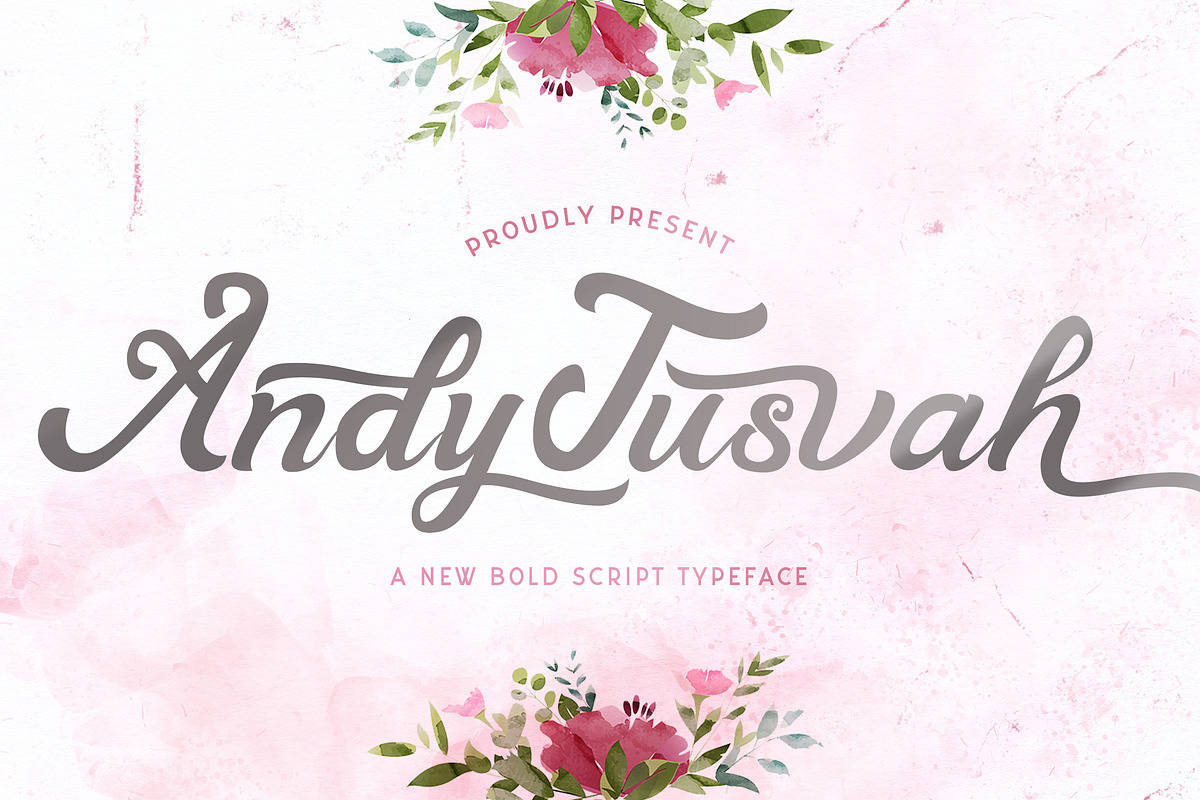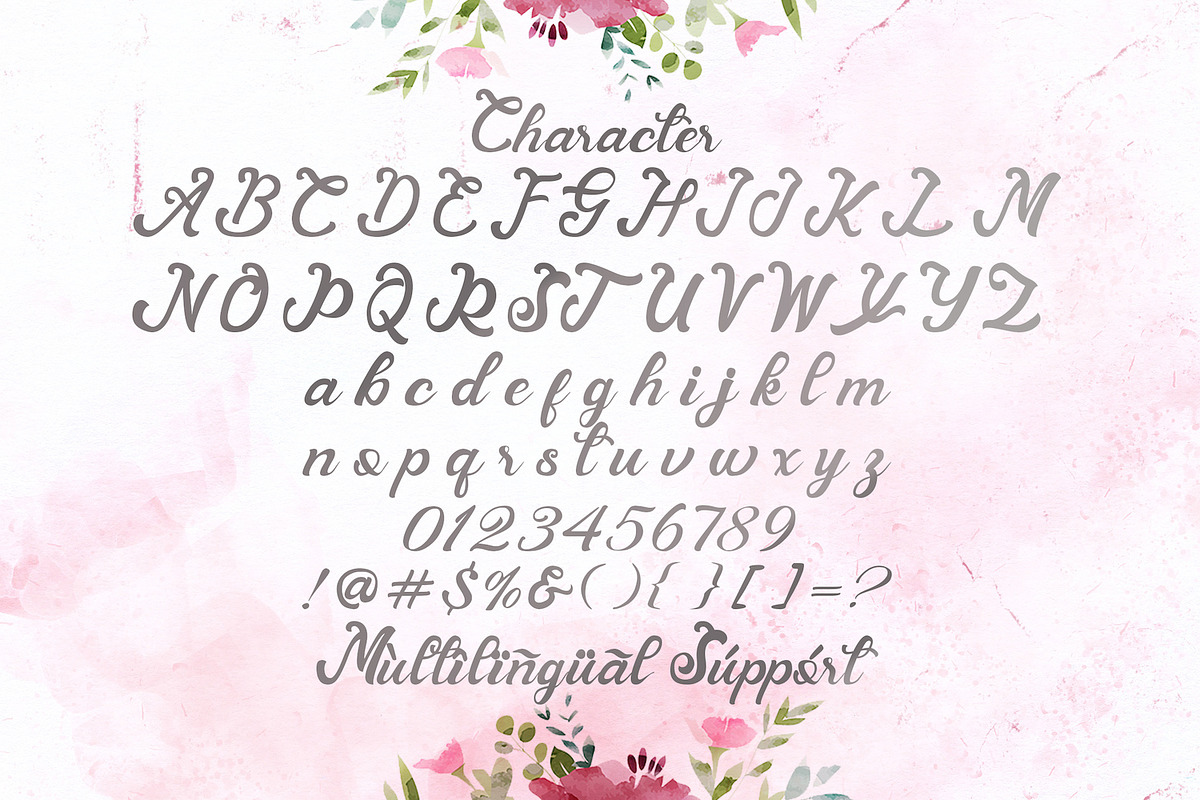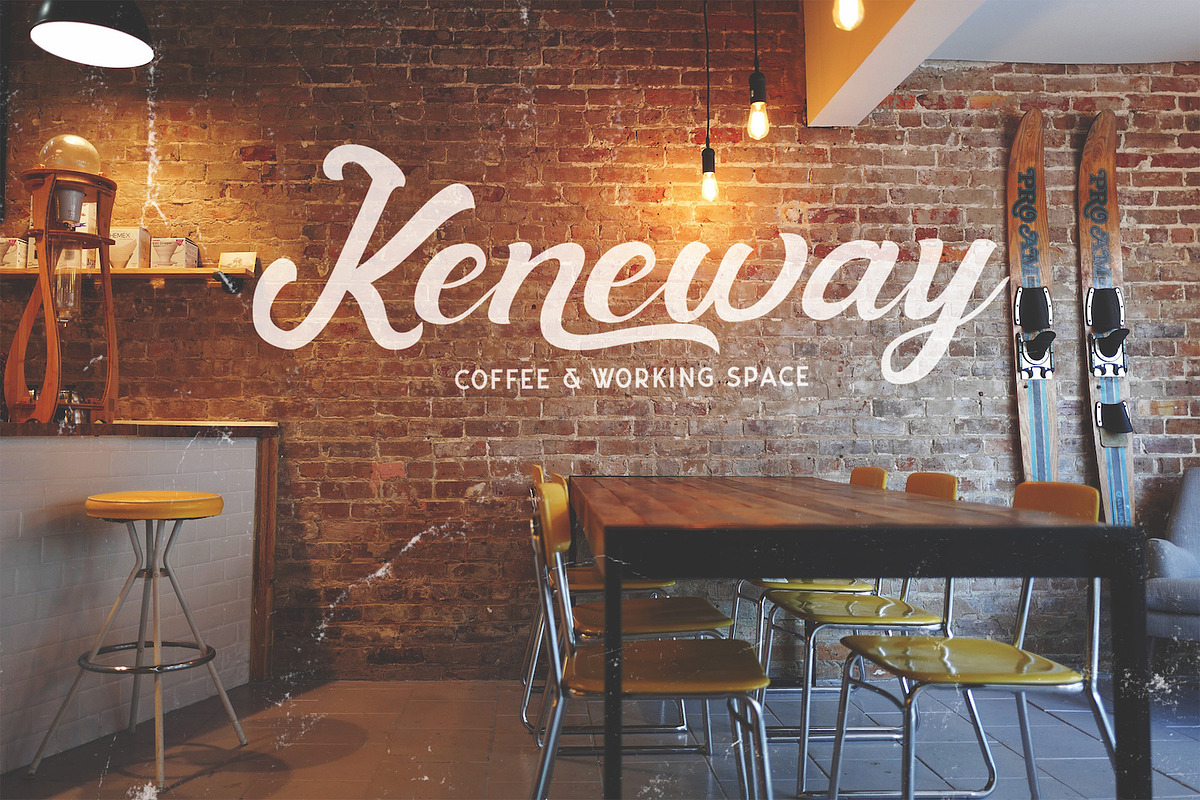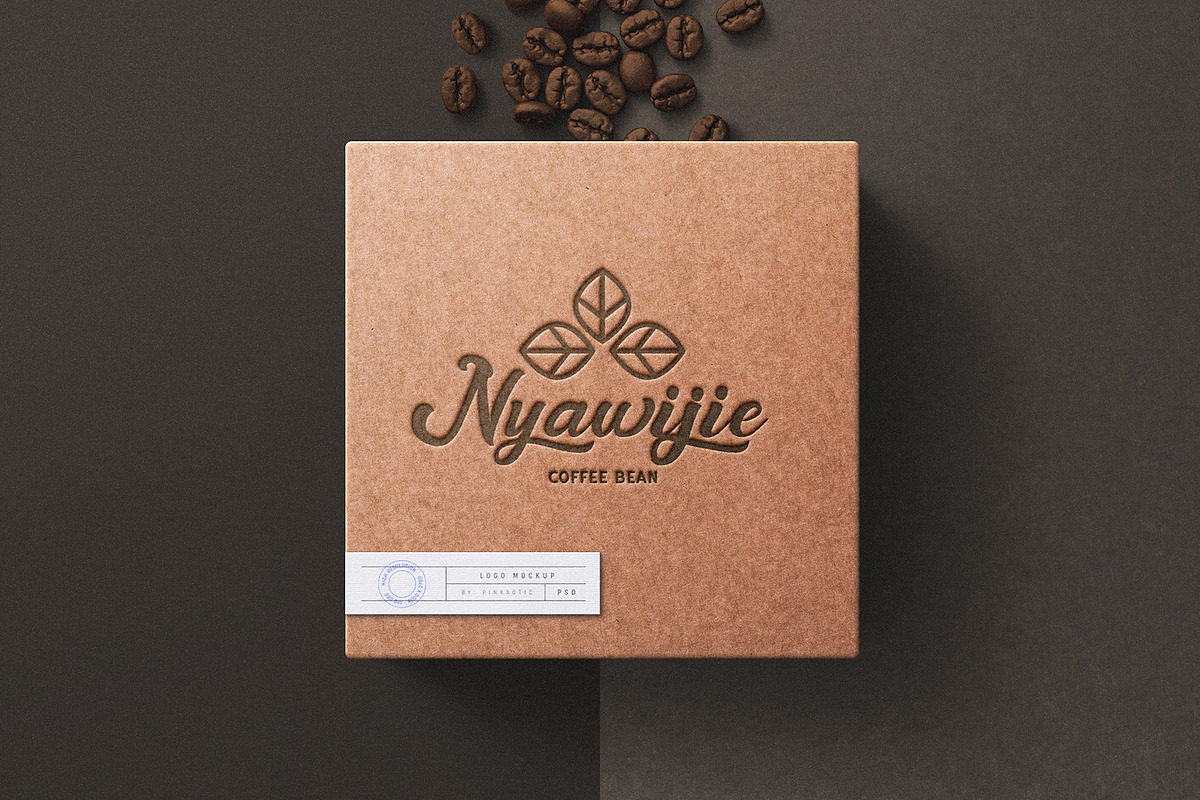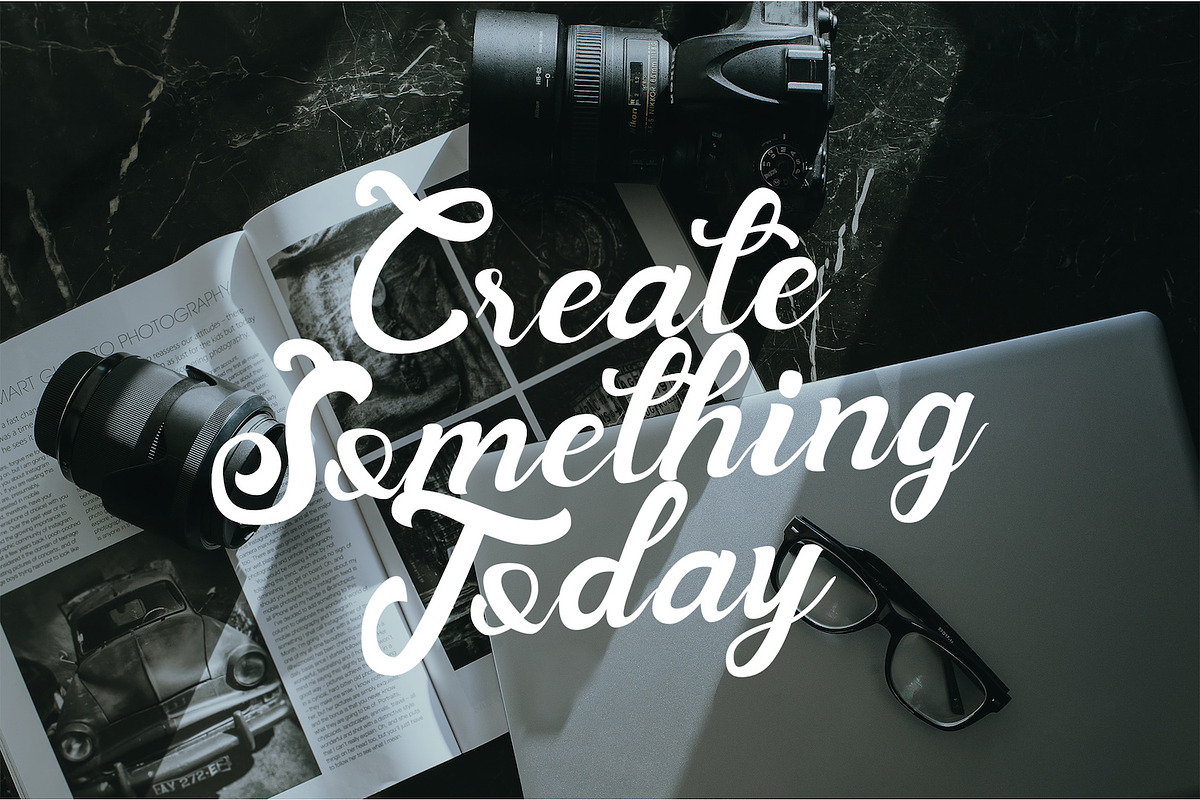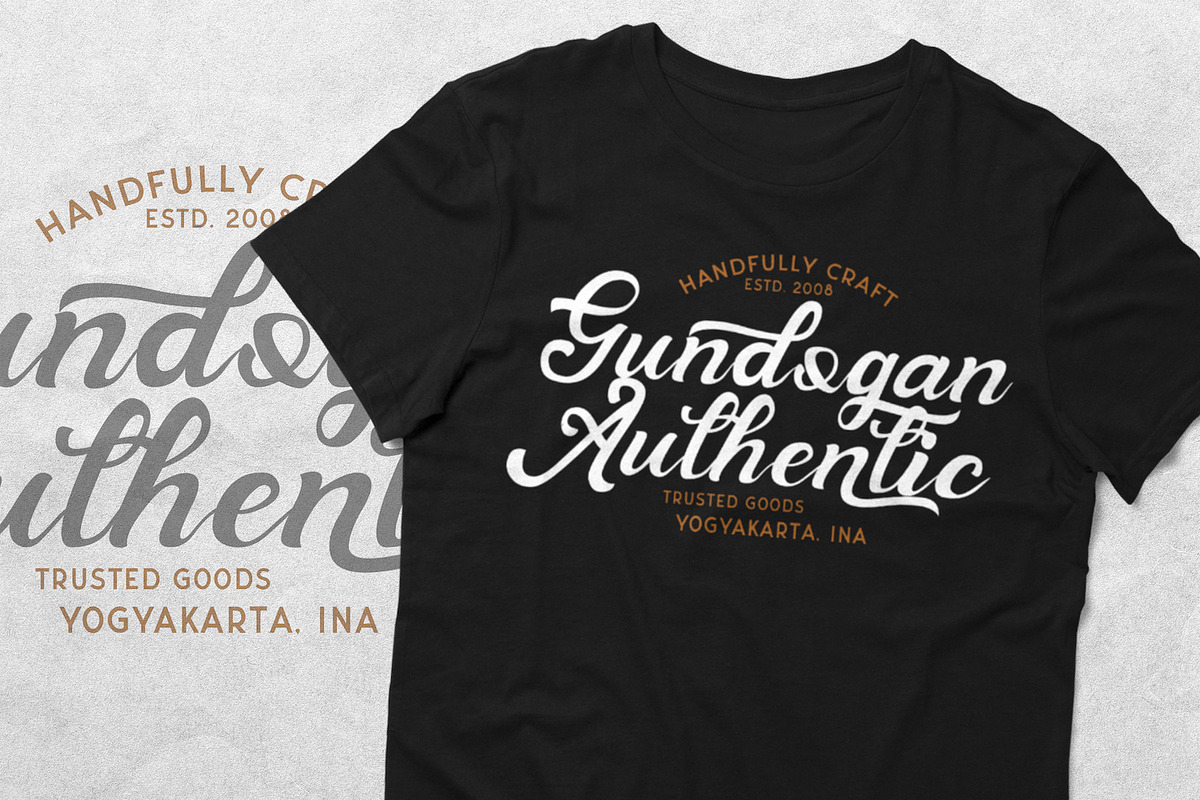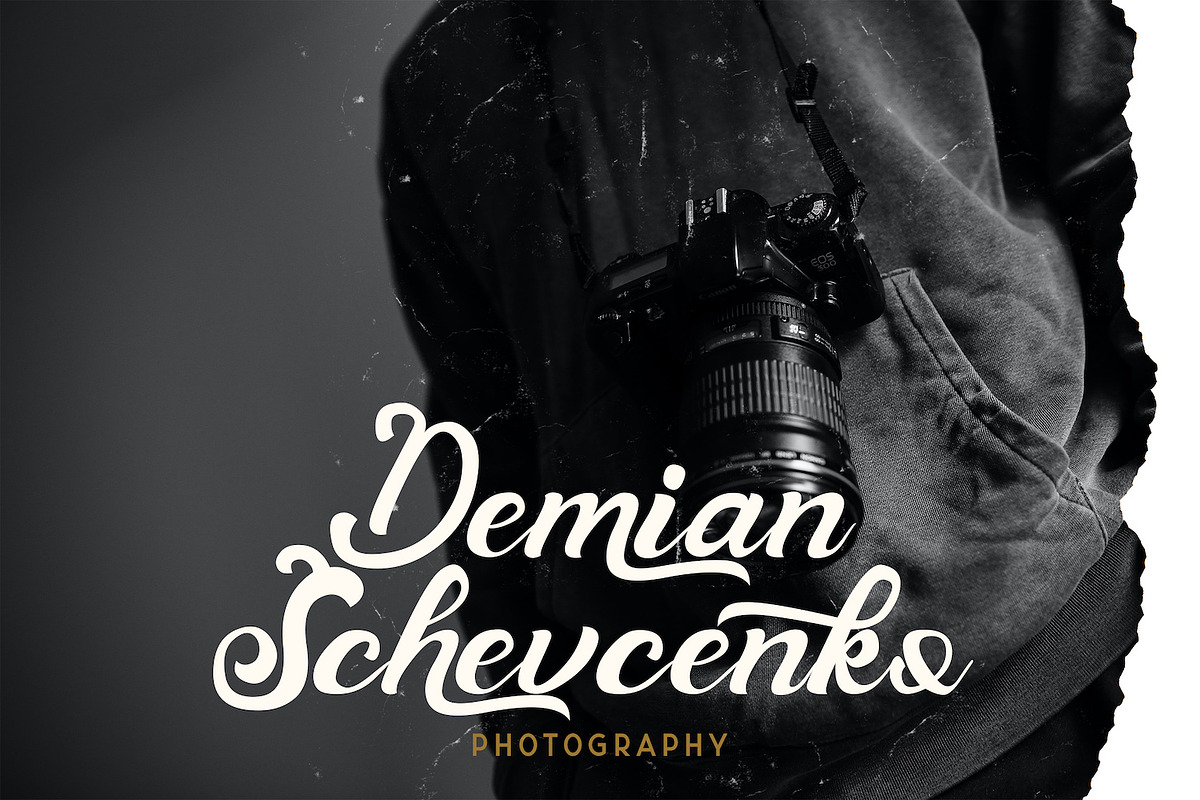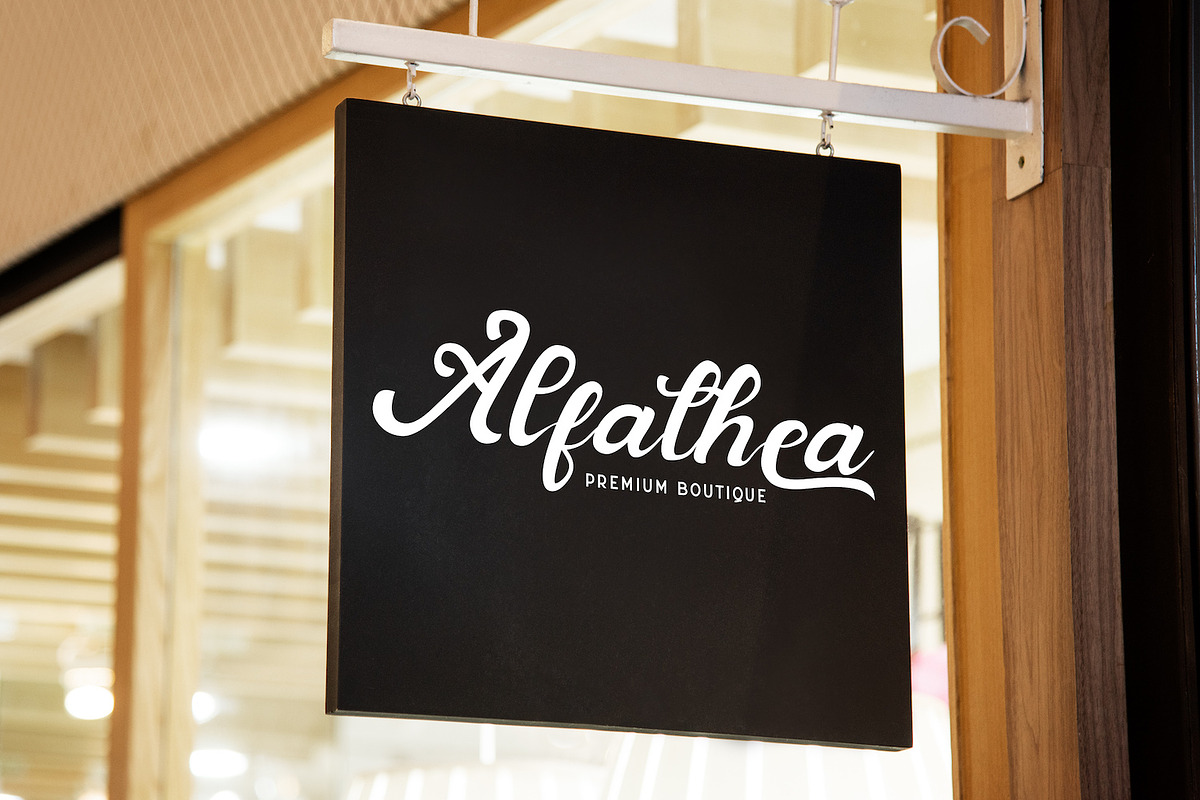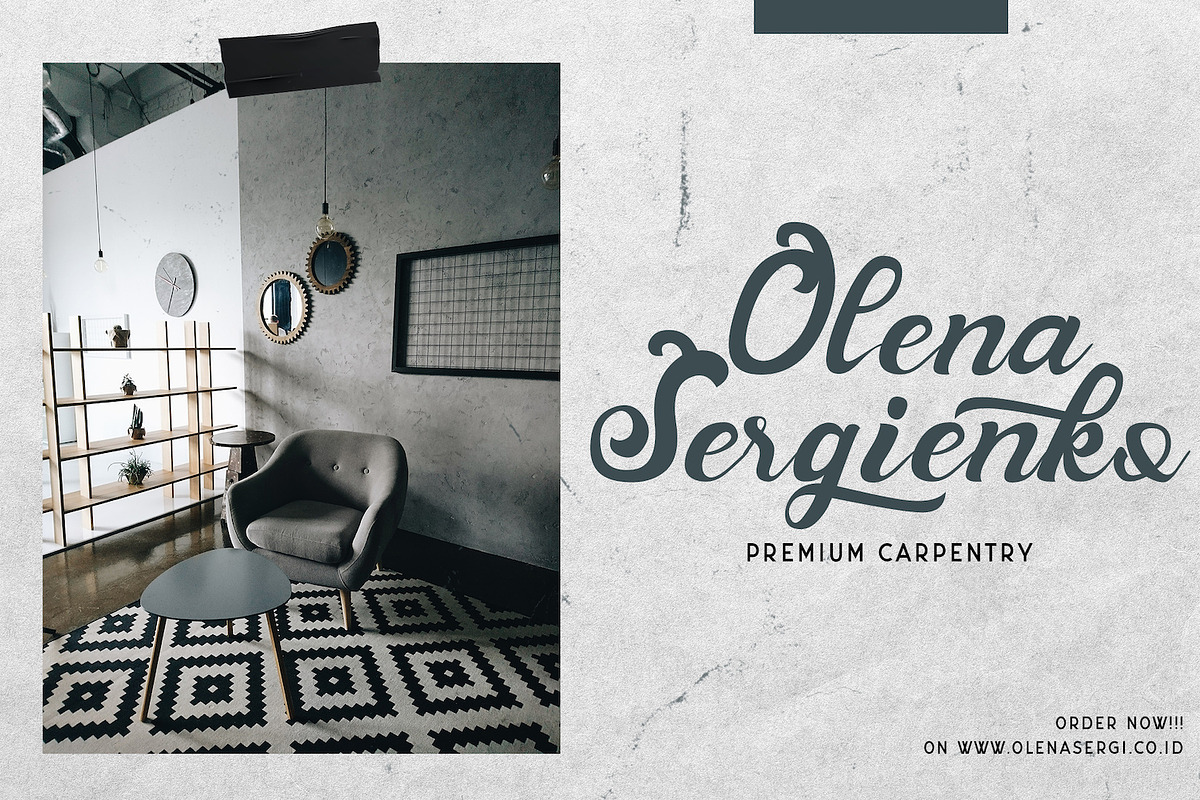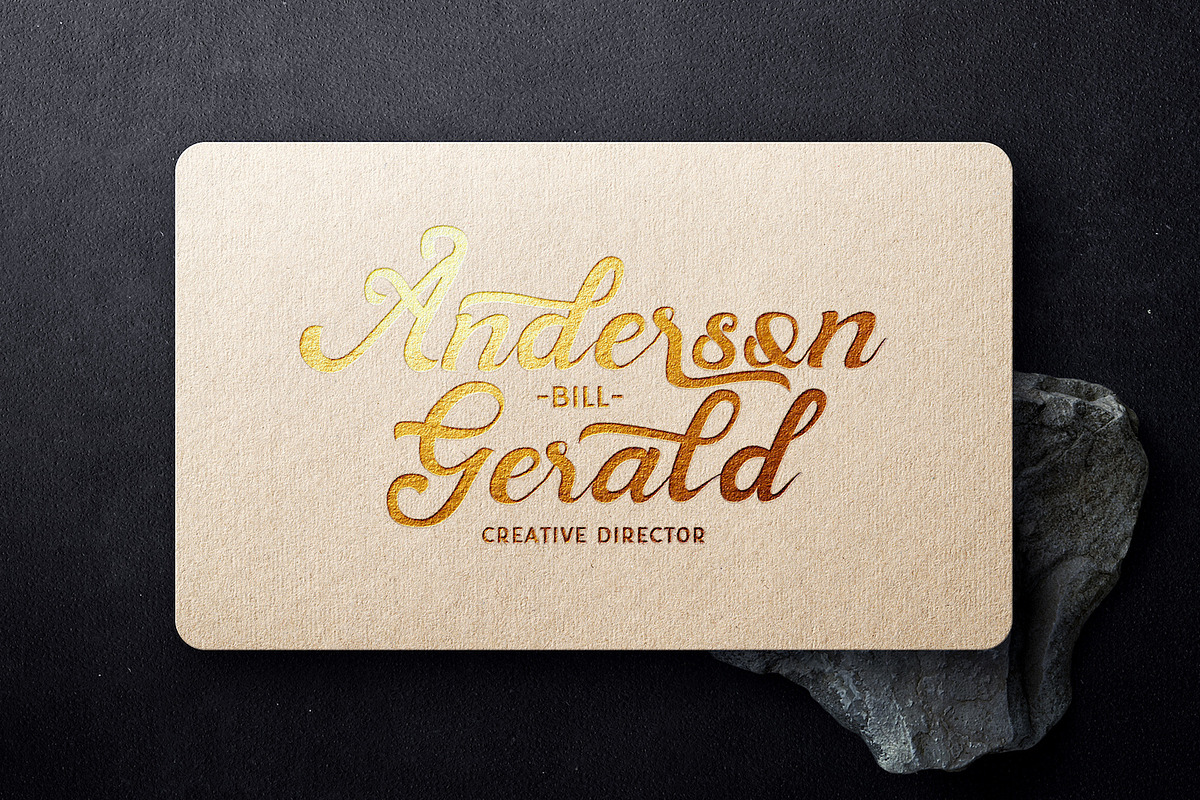
Andy Tusvah - Bold Script Font
Introducing Andy Tusvah - Bold Script Font
Andy Tusvah is a flowing handwritten font, described by an elegant touch, perfect for your favorite projects. Fall in love with its incredibly distinct and timeless style and use it to create spectacular designs!